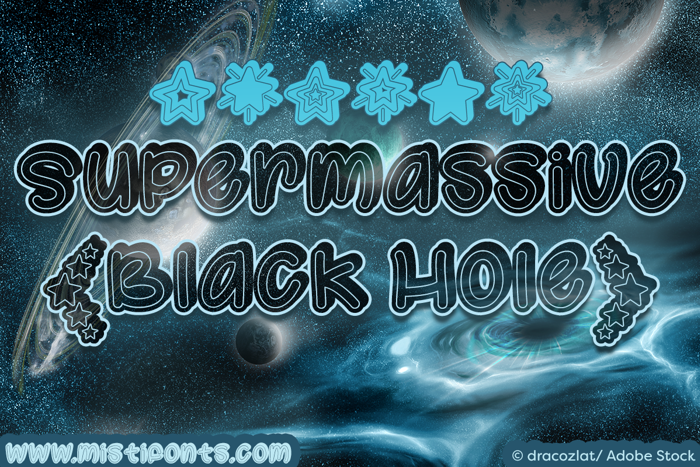
Supermassive Black Hole Font
SPECIAL SYMBOLS
Type * (asterisk) for the open star
Type | (vertical bar) for the solid star
Type \ (backslash) for the fancy star
Type _ (underscore) for the shining open star
Type ^ (circumflex) for the shining solid star
Type ~ (tilde) for the shining fancy star
Type {} (curly braces) for the star clusters